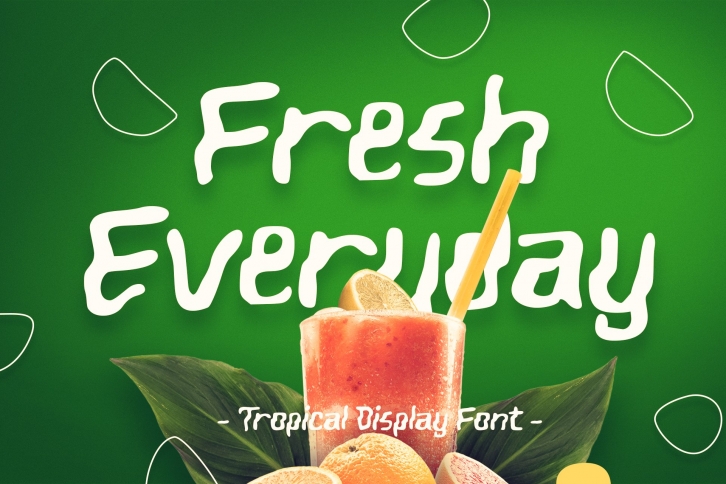
Fresh Everyday Tropical Display is a beautiful font that was designed by Ovoz shop. It's a great choice for designers and creatives who need such a font. It was released on February 24, 2021 and the file size is 11.79 MB. Fresh Everyday Tropical Display may give a more youthful, expressive and casual look to your project. It is a very beautiful, refined, elegant, and high-quality font.